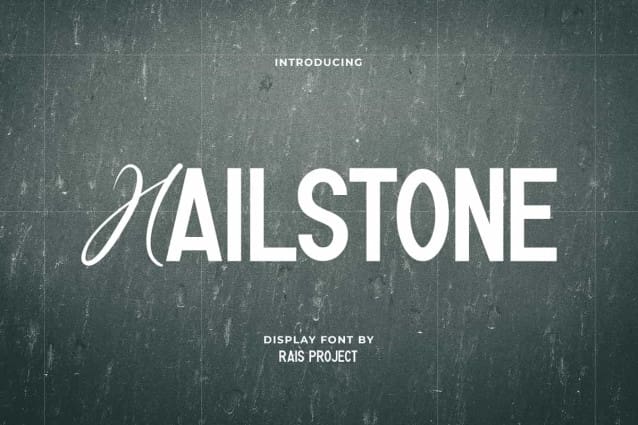
Hailstone Font
Hailstone Font is a modern combination display font designed by RaisProject. This font has a combination of handwritten and sans serif fonts that match perfectly to decorate your designs. It will be good for any designs, such as stationery, invitation, poster, cover, brand image, custom design, flyer, label, magazine, marketing material, menu, product packaging, quotes, signage, website page, and more!
Hailstone Font including a complete set of basic Uppercase and Lowercase characters, Numerals, and large range of Punctuation. This font also suitable for various industries, such as fashion, spa salon, advertising, beauty product, cafe, home furniture, marketing, movie, printing, publishing, real estate, restaurant, etc.